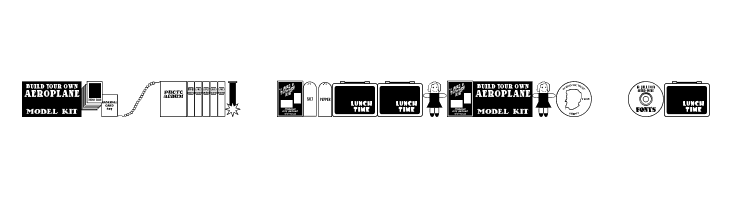
• Things Collected JL Fuentes
A playful, eclectic font with vintage-inspired graphics and text styles.
• Things DEMO Regular Fuentes
( Fonts by Pizzadude )
A whimsical and decorative font with each character represented by a unique object or character.
• Things Love Fuentes
A bold, elegant script font with flowing, interconnected characters.
• Things We Said Fuentes
( imagex - www.imagex-fonts.com )
A whimsical and decorative font with ornate, hand-drawn letterforms.
• ThingsAndSomethings Fuentes
• ThingsFoundOne Fuentes
• ThinHand Fuentes
• Think Big Fuentes
A playful, handwritten font with rounded, bold letterforms.
• Think Bold Fuentes
A bold, modern font with geometric and organic elements, featuring high contrast and wide spacing.
• Think Cosmic Fuentes
( Fonts by Ayca Atalay )
Casual handwritten script font.